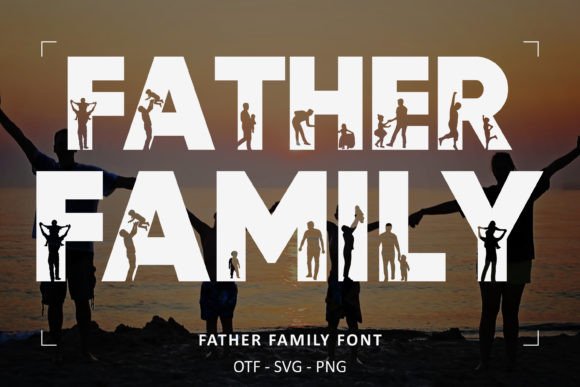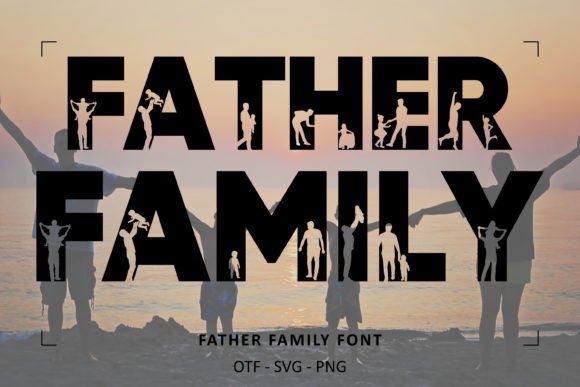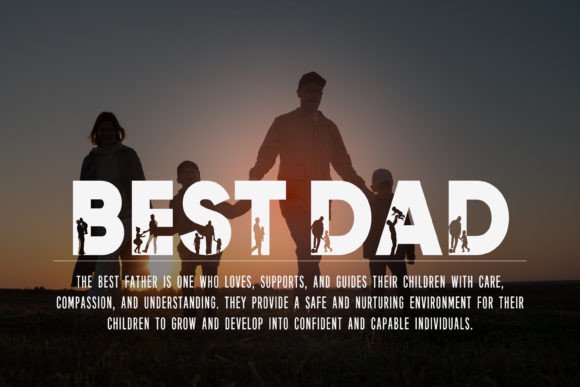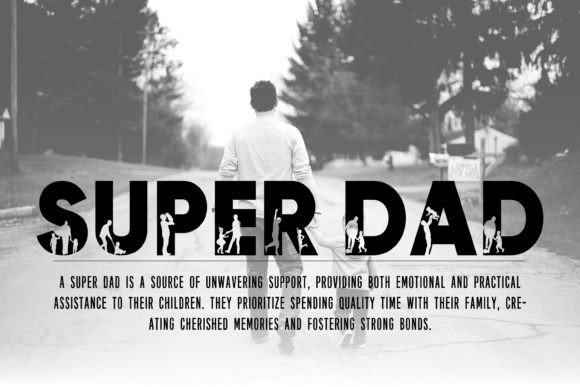
About the Father Family Font
Introducing the Father Family Font, a beautifully crafted typeface designed to elevate your creative projects. Introducing the “Father Family Font” – a captivating black and white color font featuring Father & Family silhouette patterns, which is perfect for all your Father’s Day-themed projects. You can use it to design products such as banners, content, mugs, cards, shirts, stationery, social media posts, and more. Add it confidently to your projects, and you will love the results.
The Father Family Font’s strong silhouette style is ideal for headlines, logos, and short-form text on posters or packaging. Its bold, slightly rustic character lends itself well to projects emphasizing family, heritage, or tradition. Avoid using it for body text or long paragraphs; its visual weight can be overwhelming in extended use.
For a balanced aesthetic, pair Father Family with a clean sans-serif like Open Sans for readability in supporting text, or consider a more playful script font like Pacifico for a contrasting yet harmonious feel. Geometric sans-serif fonts would also provide a modern counterpoint.
The font’s overall personality is best described as bold and heartfelt, conveying a sense of warmth and connection. It is less suitable for minimalist or highly modern branding where a subtler approach is needed.